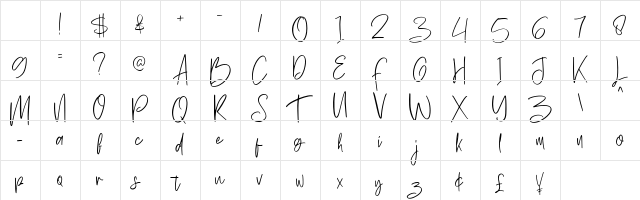
Complete Hawkins park Regular glyph index. Displaying only characters natively supported by Hawkins park Regular font.
Hawkins park is a composed and adaptable typeface that performs quietly and consistently across a wide range of design contexts.